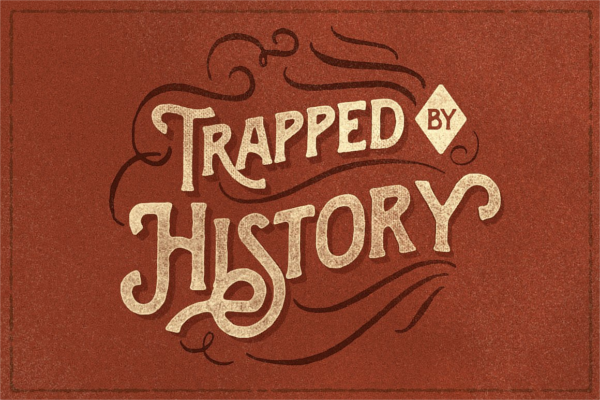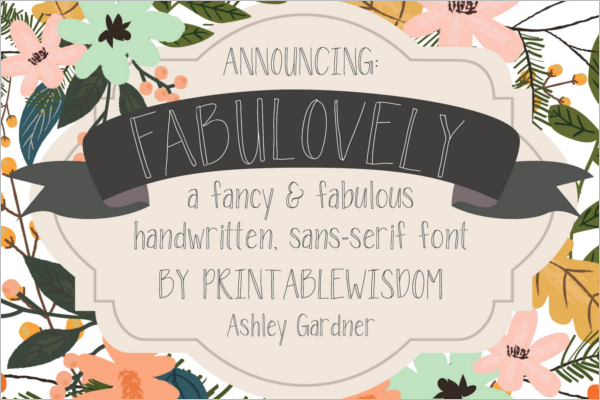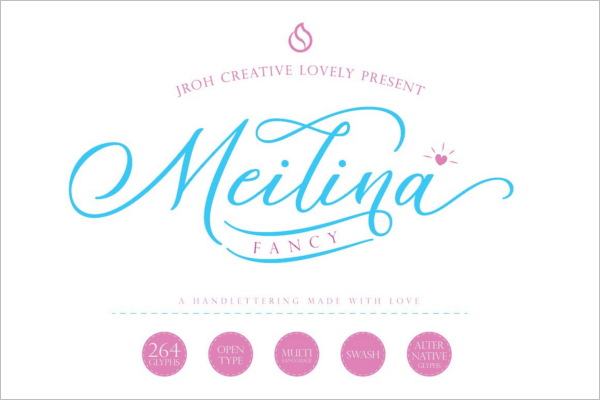
21+ Fancy Fonts Design Ideas
Fancy fonts free, more formally known as script typeface, are the technological rendering of handwriting and calligraphic techniques into the digital platform. Usually, such fonts are used to create visual variations in a document. Making it attractive and enabling the readers to pay attention to the document in question. Fancy fonts have been integrated not only on the internet (as in, its adaptation to both HTML and Unicode). But it has also been adopted by various word-processing software, like Microsoft Word for example. In this way, fancy fonts have become an important aspect of our professional lives and communication. Depending on the word-processor or the kind of coding you have been trained with. There a large variety of digital typefaces which effectively embellish the content of your text.
Usually, such fonts follow calligraphic and handwriting practices that were once in vogue. When it came to physically writing documents with ink and paper. Although very few amounts of actual writing done these days. The survival of these fonts has helped writers to design their texts accordingly. And render them as quaint or reminiscent of bygone times on your computer or mobile screens. The list of fancy fonts design ideas huge, and they annually updated to include new font styles for use. A large collection of fancy font styles await you, and you can select the appropriate header. And body fonts that would seamlessly look amazing in your document. Browse through all of them until you decide upon the set of fonts of your choice.
Luxury Fancy Font Design
Creative Fancy Font Design
Minimal Fancy Font Design
Display Hand Lettered Font
Fancy Illustration Logo Design
Stylish Caligraphy Fancy Font
Halloween Party Layer Design
Pretty Hand Writing Fonts Design
Pretty Hand Writing Fonts Designs
Tropical Typeface Font Design
Trophical Typeface Font Design
Vintage Social Media Mockup Design
Retro Vintage Fancy Font
Retro Vintage Fancy Fonts
Calligraphy Handmade Cute Font
Unique Designing Signature Font
Unique Designing Signature Fonts
Elegant Hand Lettered Font Idea
Elegant Hand Lettered Font Ideas
Bold Vintage Cursive Font
Bold Vintage Cursive Fonts
Fancy Wedding Fonts Design
Elegant Handwriting Fonts Design